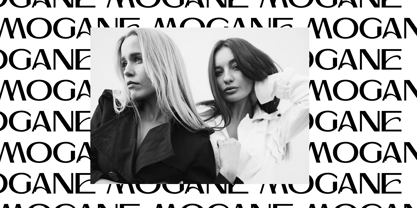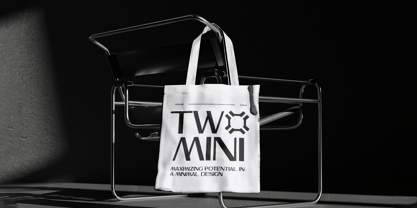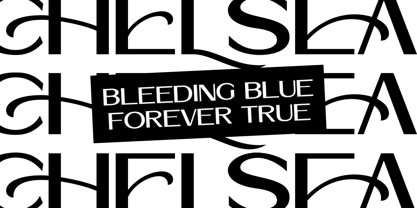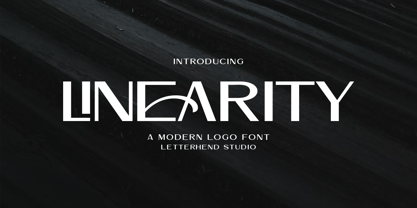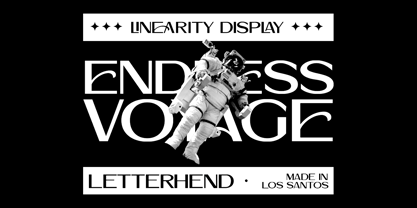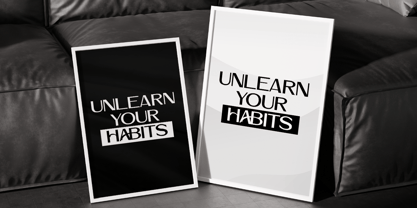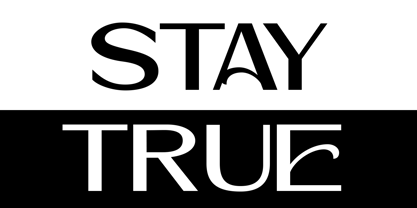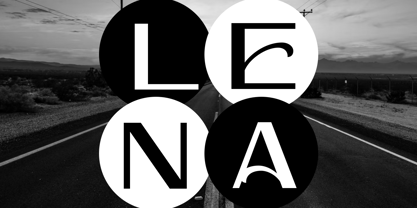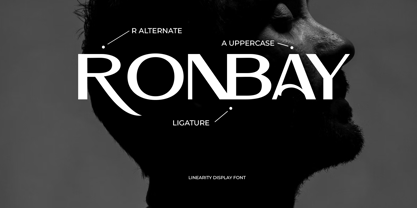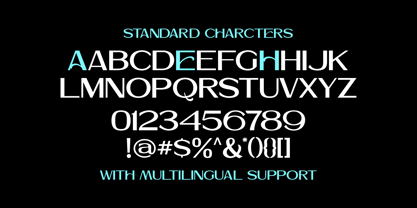
Linearity
by Letterhend
The Linearity Font Family was designed by Hendry Juanda and published by Letterhend. Linearity contains 1 styles.
Linearity is a sleek and contemporary sans-serif font designed specifically for logo design and branding. Its sharp edges and geometric forms convey a sense of modernity, professionalism, and minimalism. With clean lines and subtle creative details, it’s perfect choice for creating impactful logos, futuristic designs, technology-driven projects, and elegant headlines.